Even if you’re not a designer, you’ve probably heard the phrase “form follows function.” That’s how influential the school that espoused it, the Bauhaus, has become since its heyday in 1920s and ’30s Germany. Now, some of the movement’s most compelling–but largely unknown–lettering has been recreated from archival material, like original typography sketches and letter fragments, and transformed into contemporary digital typefaces.
The project is part of an Adobe initiative called Hidden Treasures that resurfaces design gems from the past in Adobe products–previously, the company recreated the paintbrushes used by painter Edvard Munch for use in Photoshop. For the second iteration of the initiative, Adobe worked with the Bauhaus Dessau Foundation to bring in five design students to create five distinct typefaces, all under the guidance of expert typeface designer Erik Spiekermann. While each of the typefaces will eventually be available to all users of Adobe Typekit, two are now available online: one inspired by Joost Schmidt, a teacher at the Bauhaus who also created the famed poster for the 1923 Bauhaus Exhibition, and the other inspired by Xanti Schawinsky, who taught classes in set design at the school.
The typeface Joschmi, which is based on work by Bauhaus teacher Joost Schmidt, is perhaps the most compelling. The letters, which have the look of blocky stencils, were created from just six lowercase letters by Schmidt from 1930 that Brazilian designer Flavia Zimbardi found in the Bauhaus archives. She had to design the rest of the letters and punctuation using only those six as a guide. To do so, she recreated the grid that Schmidt had originally used to draw the letters, and methodically added in new elements to create the entire alphabet.
For the typeface “Xants,” Swiss designer Luca Pellegrini used a 1932 alphabet from Xanti Schawinsky, but had to create many missing glyphs to go along with it. Schawinsky himself was a bit of a polymath, like many Bauhaus designers, and dabbled in painting, architecture, photography, graphic design, music, and stage design, the latter of which he taught at the Bauhaus. Pellegrini’s resulting typeface also has a stenciled look, but with a bit more curvy whimsy than Joschmi.
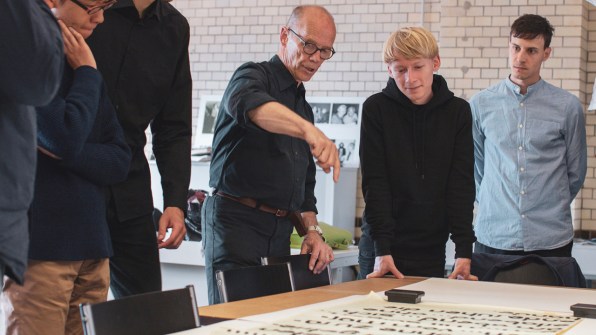
Eventually, there will be five typefaces, with others inspired by designers Carl Marx, Alfred Arndt, and Reingold Rossig. Today, these typefaces seem retro but not outdated–it’s easy to imagine them being used for all kinds of contemporary graphic design. The revival of these lost letterforms points to the continued importance of the Bauhaus, nearly a century later. Then as now, design continues to be a vital tool for communication.